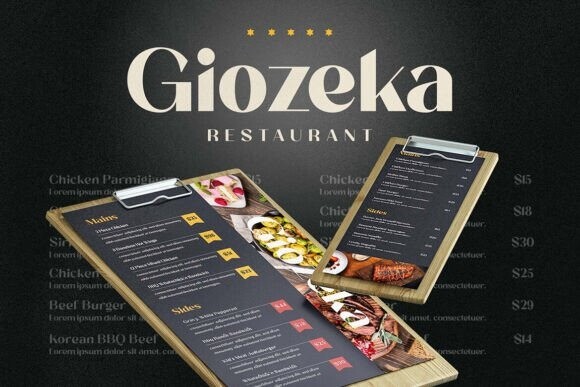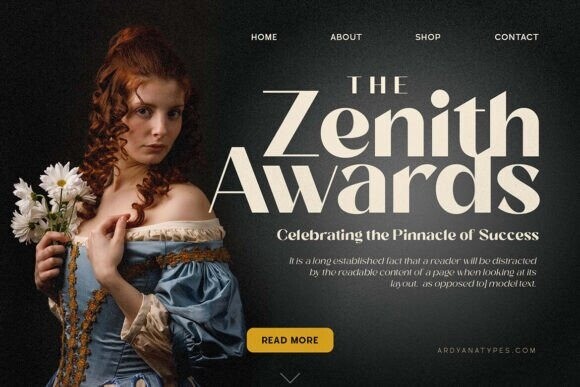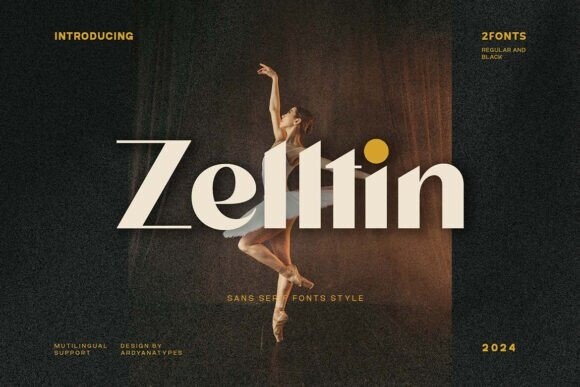
Zelltin Font
Zelltin Font, a sans serif font that blends classic elegance with modern functionality. Specially designed for professional graphic designers, creative agencies, and the film industry, Zelltin is the ultimate choice for creating stunning and impactful designs.